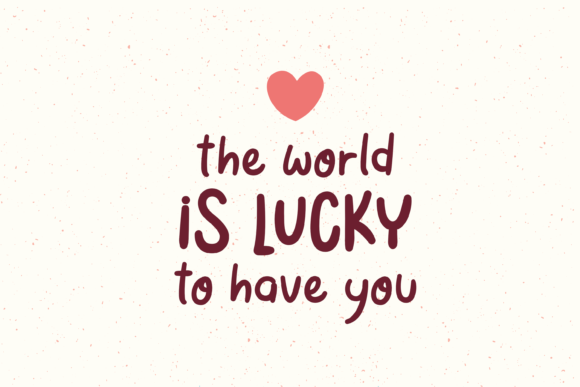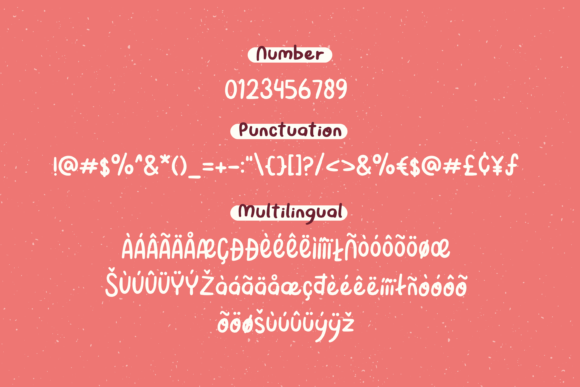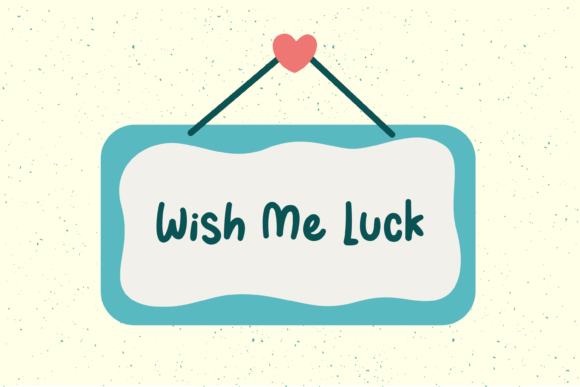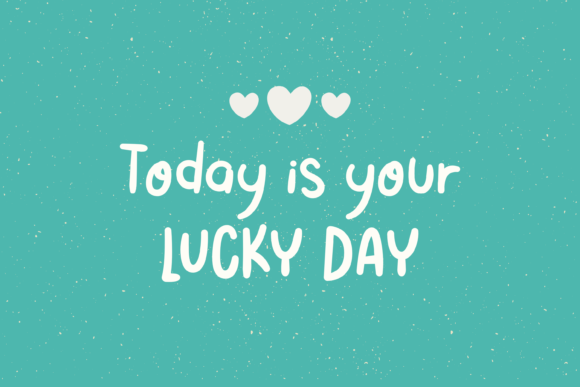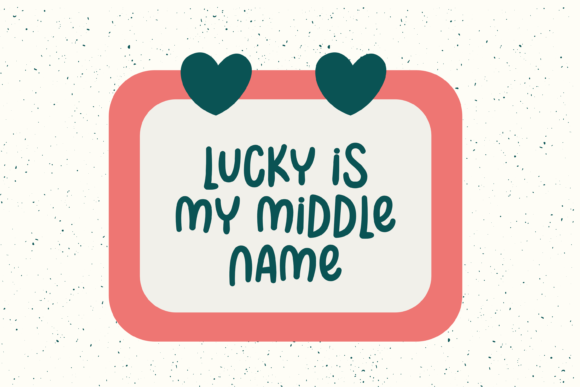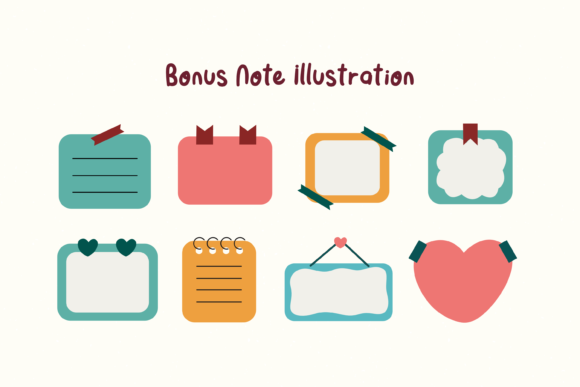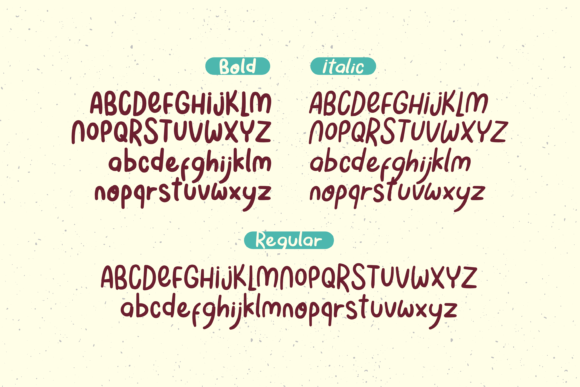
Lucky You Font
Introducing “Lucky You,” a handwritten font designed to bring cuteness and eye-catching charm to your projects. Perfect for designing fun and kid’s themes, such as mock-ups, book covers, packaging designs, social media posts, and more, Lucky You offers a playful and delightful option.
With its adorable strokes and whimsical appearance, Lucky You adds a touch of charm and personality to any design. Its handwritten style exudes warmth and fun, making it ideal for capturing the attention of children and adults alike.
Experience the cuteness and versatility of Lucky You and watch as it brings joy to your designs. Whether you’re a professional designer or a passionate enthusiast, this font invites you to explore new possibilities and express yourself with confidence and style.
Unlock the full potential of your projects with Lucky You and let its cute handwritten font elevate your designs to new heights. With its playful charm and eye-catching appeal, Lucky You is sure to become a beloved addition to your design toolkit, inspiring creativity and happiness with every use.